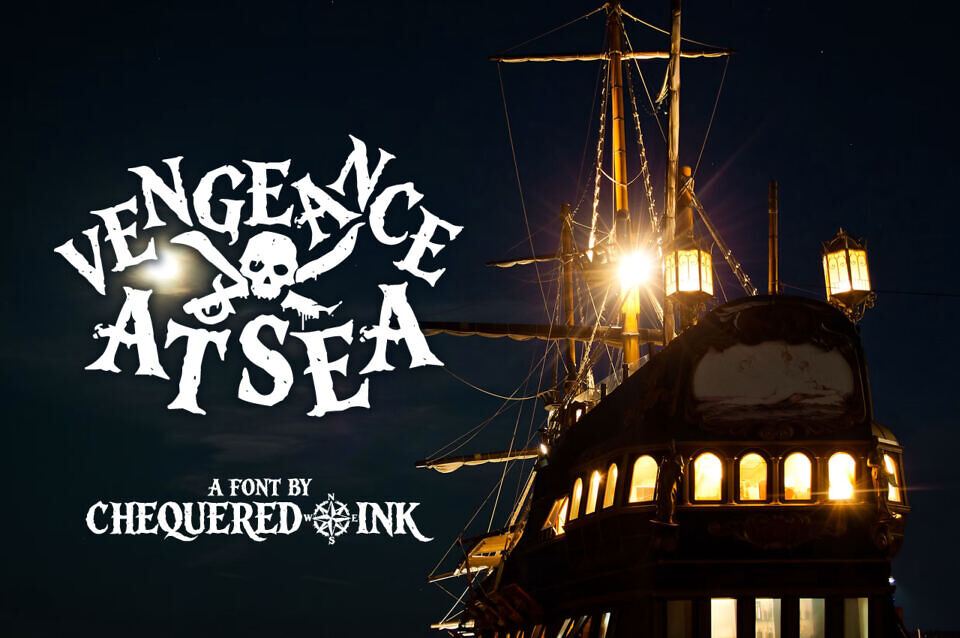
Vengeance At Sea Font
Vengeance at Sea is a rugged vintage display font inspired by pirate legends, weathered maps, and life on the open ocean. Its distressed letterforms and hand-crafted character create an adventurous, nautical feel, making it ideal for pirate-themed designs, treasure hunt graphics, book covers, posters, game titles, branding, and historical projects that need a bold and authentic maritime aesthetic.